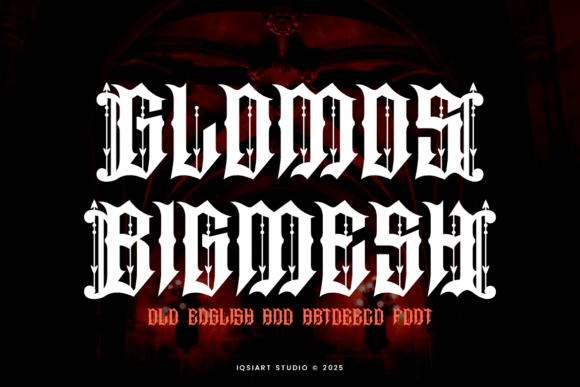
Introducing Glomos Bigmesh Font: The Ultimate Bold and Thick Lettered Blackletter Font
In the world of typography, fonts play a crucial role in conveying the tone and personality of a brand or design project. When it comes to making a bold statement, few fonts can match the impact of Glomos Bigmesh, a striking blackletter font that is sure to elevate your designs to the next level. In this article, we’ll take a closer look at Glomos Bigmesh, its features, and why it’s a must-have for designers and creatives.
What is Glomos Bigmesh Font?
Glomos Bigmesh is a bold and thick lettered blackletter font that exudes confidence and sophistication. Its unique design makes it perfect for a wide range of projects, from branding and advertising to packaging and editorial design. With its robust and eye-catching lettering, Glomos Bigmesh is sure to grab attention and leave a lasting impression.
Key Features of Glomos Bigmesh Font
- Bold and Thick Lettering: Glomos Bigmesh boasts a bold and thick lettered design that commands attention and makes a statement.
- Blackletter Font: As a blackletter font, Glomos Bigmesh features a distinctive, ornate style that adds a touch of elegance and sophistication to any design.
Why Choose Glomos Bigmesh Font?
So why should you choose Glomos Bigmesh for your design projects? Here are just a few compelling reasons:
- Uniqueness: Glomos Bigmesh is a one-of-a-kind font that will set your designs apart from the crowd.
- Versatility: With its bold and thick lettering, Glomos Bigmesh can be used for a wide range of projects, from headlines and titles to logos and branding.
How to Use Glomos Bigmesh Font
Using Glomos Bigmesh is straightforward and easy. Here are a few tips to get you started:
- Pair it with Other Fonts: Glomos Bigmesh pairs well with a variety of other fonts, so feel free to experiment and find the perfect combination for your design.
- Experiment with Colors and Textures: Glomos Bigmesh looks great in a range of colors and textures, so don’t be afraid to get creative and try out different effects.
- Use it for Headlines and Titles: Glomos Bigmesh is perfect for headlines and titles, where its bold and thick lettering can really make an impact.
- What is a blackletter font? A blackletter font is a type of font that features a distinctive, ornate style, often with bold and thick lettering.